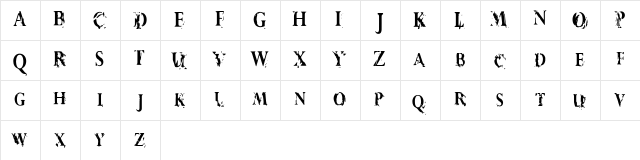
Vtks Demolition Regular
| Foundry | douglas vitkauskas |
| Designer | douglas vitkauskas |
Design Context for Vtks Demolition Typeface
Vtks Demolition is a composed and adaptable typeface that performs quietly and consistently across a wide range of design contexts.